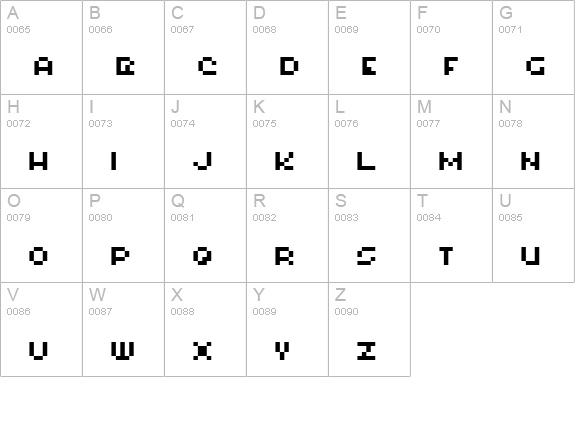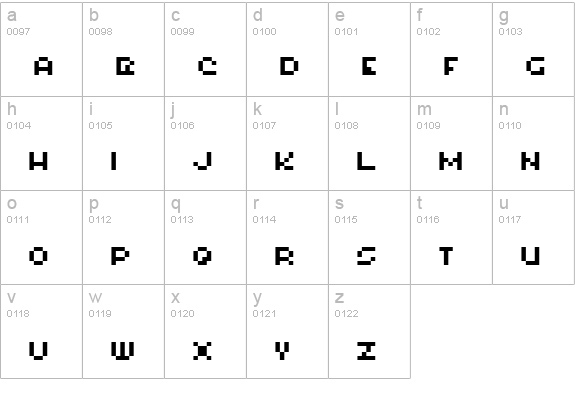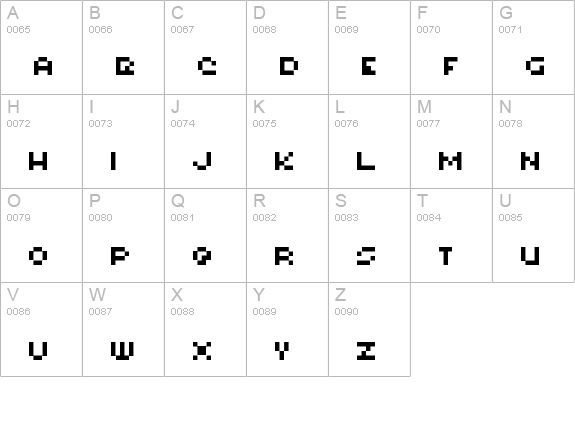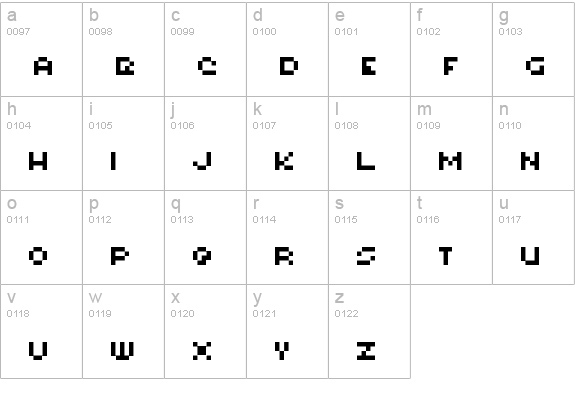
M Web Font Details
Introducing the remarkable M Web font, the perfect choice for all your online typography needs. With its sleek and modern design, M Web font effortlessly enhances the aesthetic appeal of any website or digital project. This versatile font is not only visually stunning, but it also offers incredible functionality that ensures optimal legibility across various devices and screen sizes. What sets the M Web font apart is its accessibility - it is completely free to download at FontsMarket.com. Now, you can effortlessly elevate your online presence without any additional cost. Whether you are a web designer, developer, or simply an individual looking to enhance their online content, the M Web font is the ideal solution. With its wide range of weights and styles, the M Web font provides endless possibilities for creative expression. From bold headlines to elegant body text, this font adapts seamlessly to any design concept. Its clean lines and crisp edges ensure readability, even at smaller sizes, while maintaining a sophisticated and professional appearance. Furthermore, the M Web font is fully compatible with all major web browsers, ensuring a seamless user experience for your website visitors. Its optimized performance and impeccable rendering make it the perfect choice for anyone seeking to create a visually stunning and user-friendly online platform. In conclusion, the M Web font is a must-have for any design enthusiast or professional seeking to make a lasting impression online. And the best part? It's completely free! Don't miss out on this incredible opportunity to enhance your digital projects with the M Web font, available for download now at FontsMarket.com.